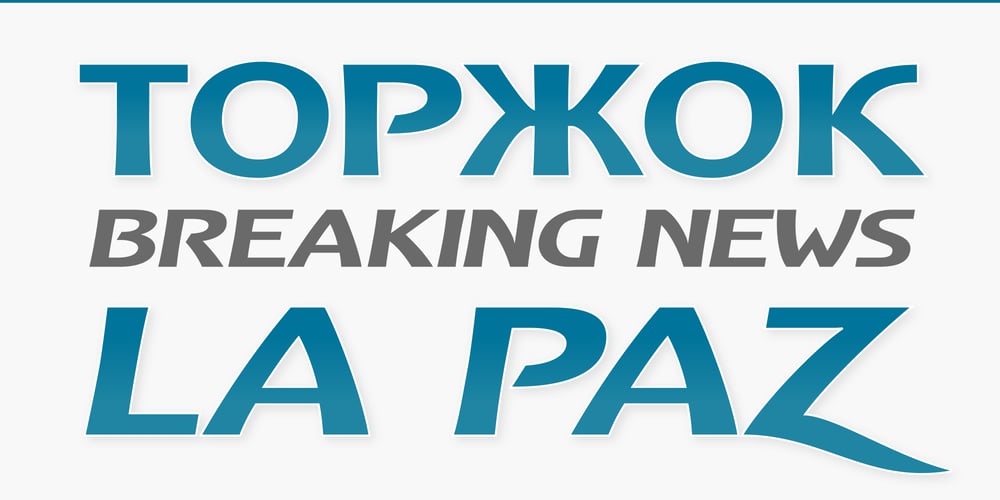
Logotypia Pro Font Family was designed by Ralf Herrmann and published by FDI. Logotypia Pro contains 2 styles and family package options. Logotypia Pro is is made for one purpose: the design of modern logotypes, brands and headlines. Logotypia Pro offers: – unique and modern shapes – alternate swash glyphs – easy to build ligatures – connect glyphs with Logotypia’s “connector-glyphs” – metrics optimized for display use – complete class based kerning – includes western (ANSI/Mac Roman) and russian alphabet (codepage 8859-5)